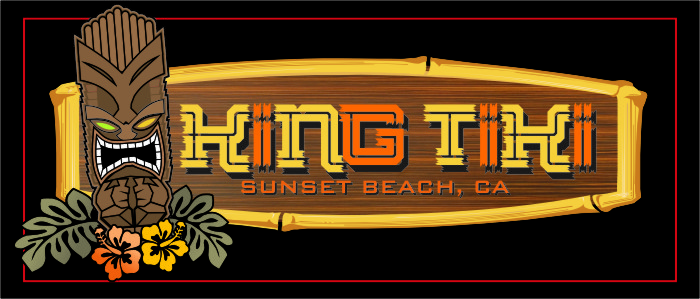
You nice sample reminds me of some mobile game, very well done!
Congratulations! FontStruct Staff have deemed your FontStruction worthy of special mention. “King Tiki” is now a Top Pick.